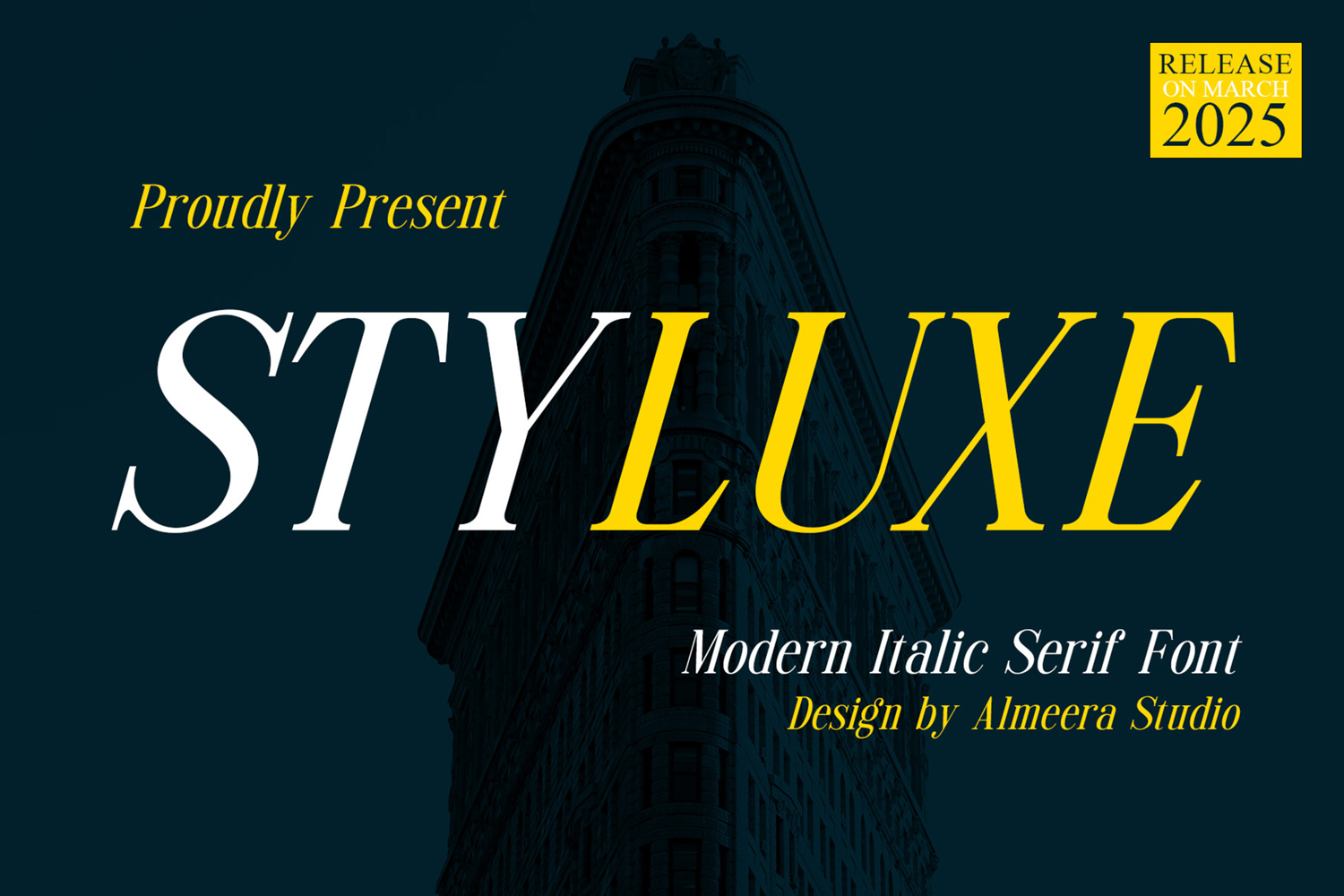
Styluxe
Introducing Styluxe - Italic serif font. Styluxe is a display, italic & retro serif font, This type of font is very suitable for your various needs such as branding projects, logos, social media posts, advertisements, labels, product packaging, photography, wedding designs, watermarks, invitation product designs, stationery, and any project.